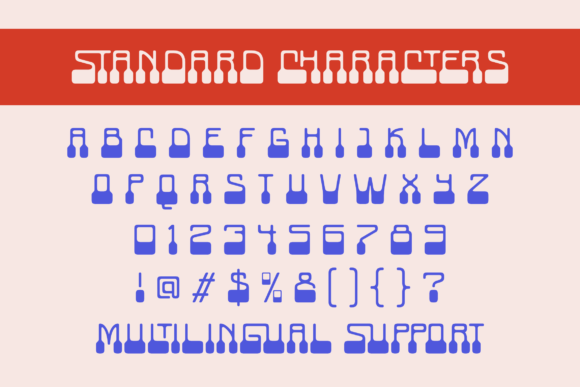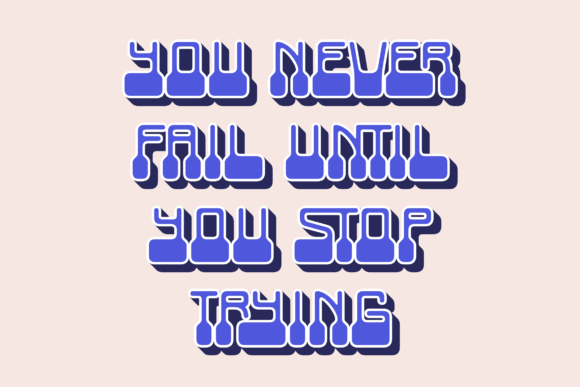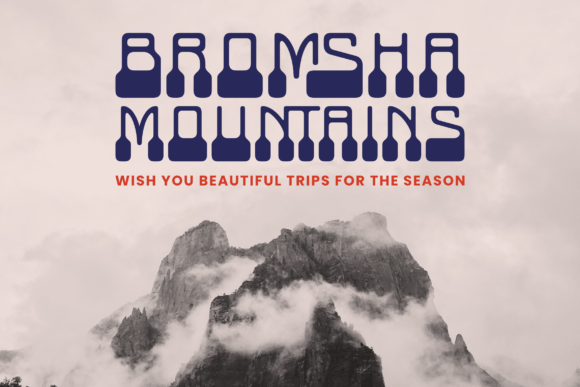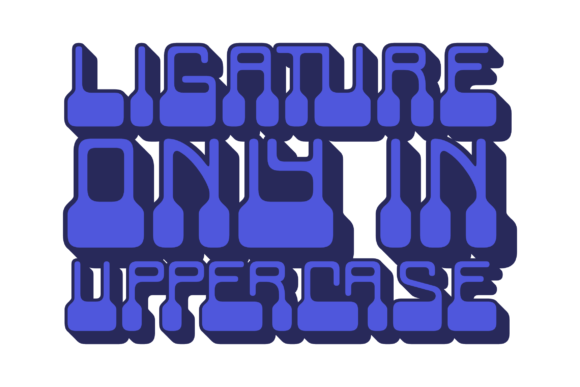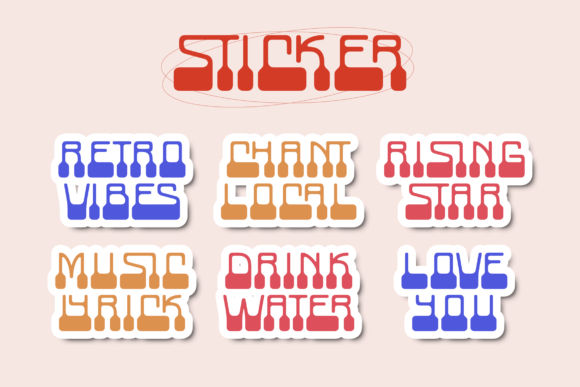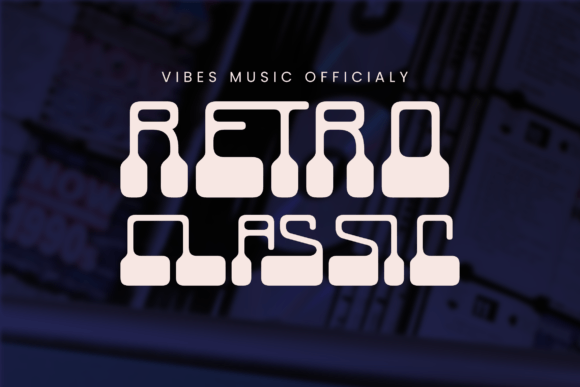
Introducing Chamyvibes Font: The Ultimate Display Font for Creative Projects
Are you tired of using the same old fonts for your creative projects? Look no further than Chamyvibes Font, a unique display font that is sure to make your designs stand out. With its aesthetic looks and versatility, Chamyvibes is perfect for a wide range of applications, from storybooks and child themes to invitations, labels, logos, and more.
What Makes Chamyvibes Font So Special?
Chamyvibes Font is a one-of-a-kind display font that boasts a distinctive style that is both visually appealing and highly legible. Its unique aesthetic makes it perfect for designs that require a standout font, such as:
- Storybooks and child themes
- Labels and logos
- Magazines and books
- Wedding cards and stationery
- Packaging and fashion designs
- Makeup and beauty branding
- Novels and other literary works
The Benefits of Using Chamyvibes Font
So why choose Chamyvibes Font for your next project? Here are just a few benefits of using this amazing font:
- Unique and eye-catching design: Chamyvibes Font is sure to grab attention and make your designs stand out from the crowd.
- Highly versatile: Whether you’re working on a storybook, invitation, or logo, Chamyvibes Font is the perfect choice.
Tips and Tricks for Getting the Most Out of Chamyvibes Font
Here are a few tips and tricks for getting the most out of Chamyvibes Font:
- Experiment with different sizes and colors: Chamyvibes Font looks great in a variety of sizes and colors, so don’t be afraid to experiment and find the perfect combination for your design.
- Use the glyphs and swashes to add visual interest: The glyphs and swashes in Chamyvibes Font are a great way to add visual interest to your designs. Use them to create unique and eye-catching compositions.
- Pair Chamyvibes Font with other fonts: Chamyvibes Font pairs well with a variety of other fonts, so try combining it with other fonts to create a unique and interesting design.